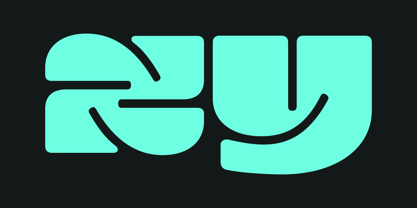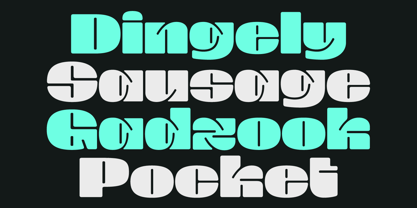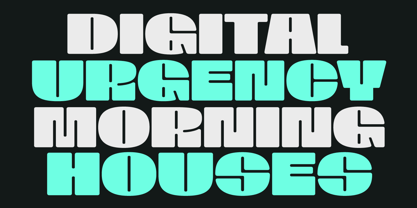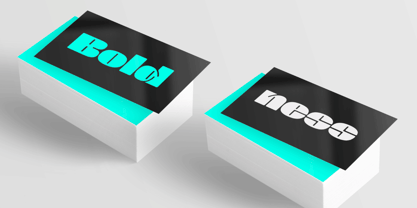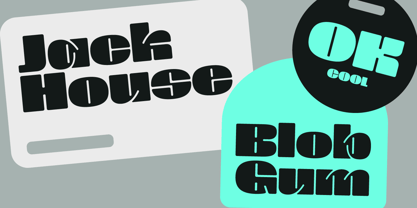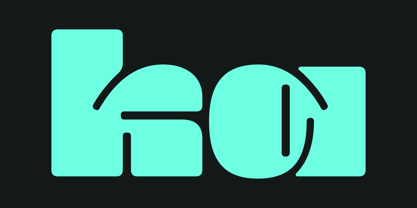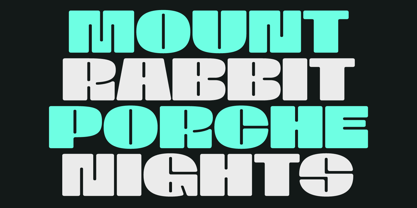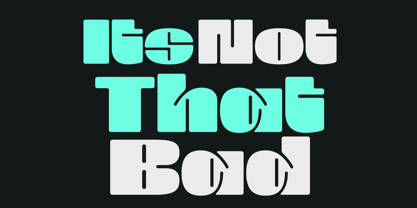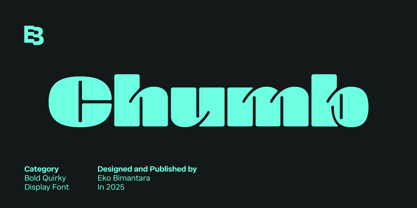
Chumb
by Eko Bimantara
The Chumb Font Family was designed by Eko Bimantara and published by Eko Bimantara. Chumb contains 1 styles. More about this family
Chumb is a bold and quirky display font with unique letterforms featuring tight counters, close spacing, and distinctive inktraps. Its striking design makes it perfect for contemporary and experimental themes, adding a bold touch to titles, product designs, and brand identities. Ideal for large displays, headers, websites, packaging, and various graphic design purposes, Chumb brings a creative and standout look to any project.